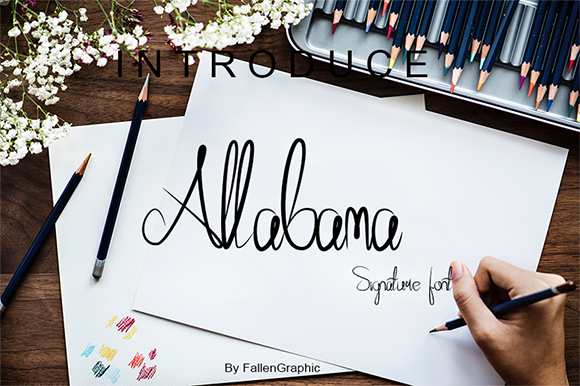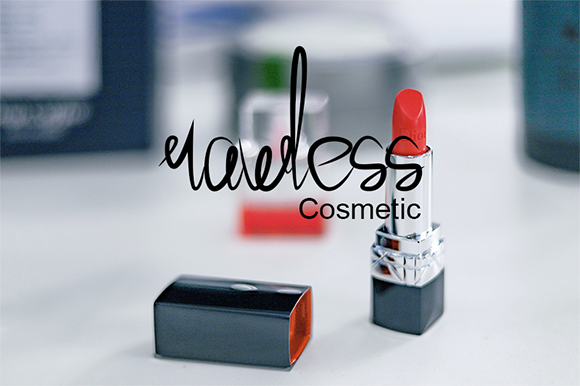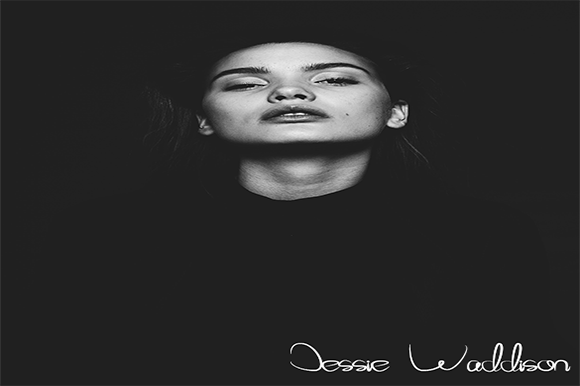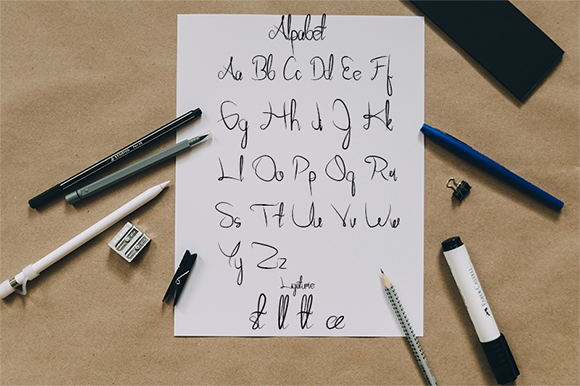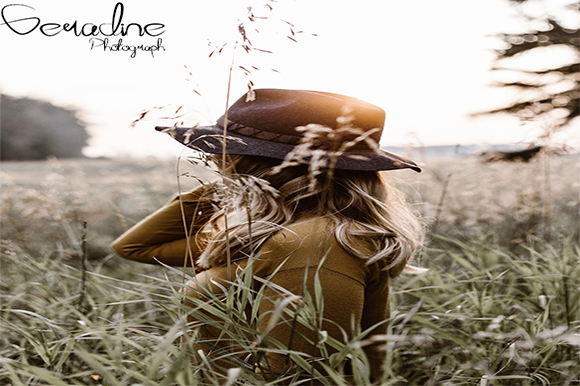
Allabama Font
About Allabama Font
The Allabama is a beautiful script font. It has a good readability and will give your design an elegant, yet modern feel.